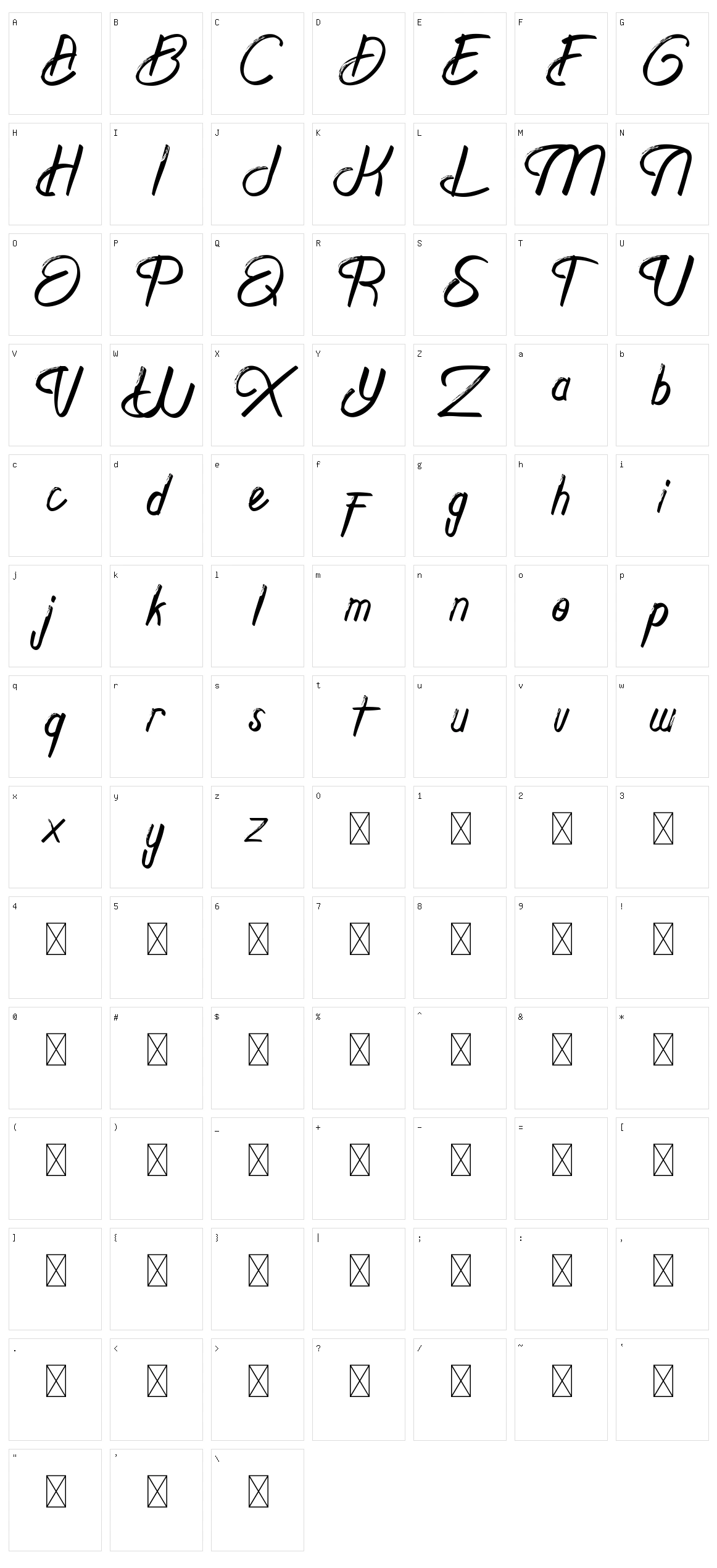
The free font Dearth Dance is carefully designed by RaisProject, showcasing a thoughtful balance of creativity and usability and falls under the Script font style. When you download the ZIP file, it contains only 175.63 KB of font files, making it lightweight and quick to download. Please review the license details below to understand permitted usage and distribution rights. If license information is not available, we recommend using this font for personal projects only or contacting the author directly for commercial usage permissions.